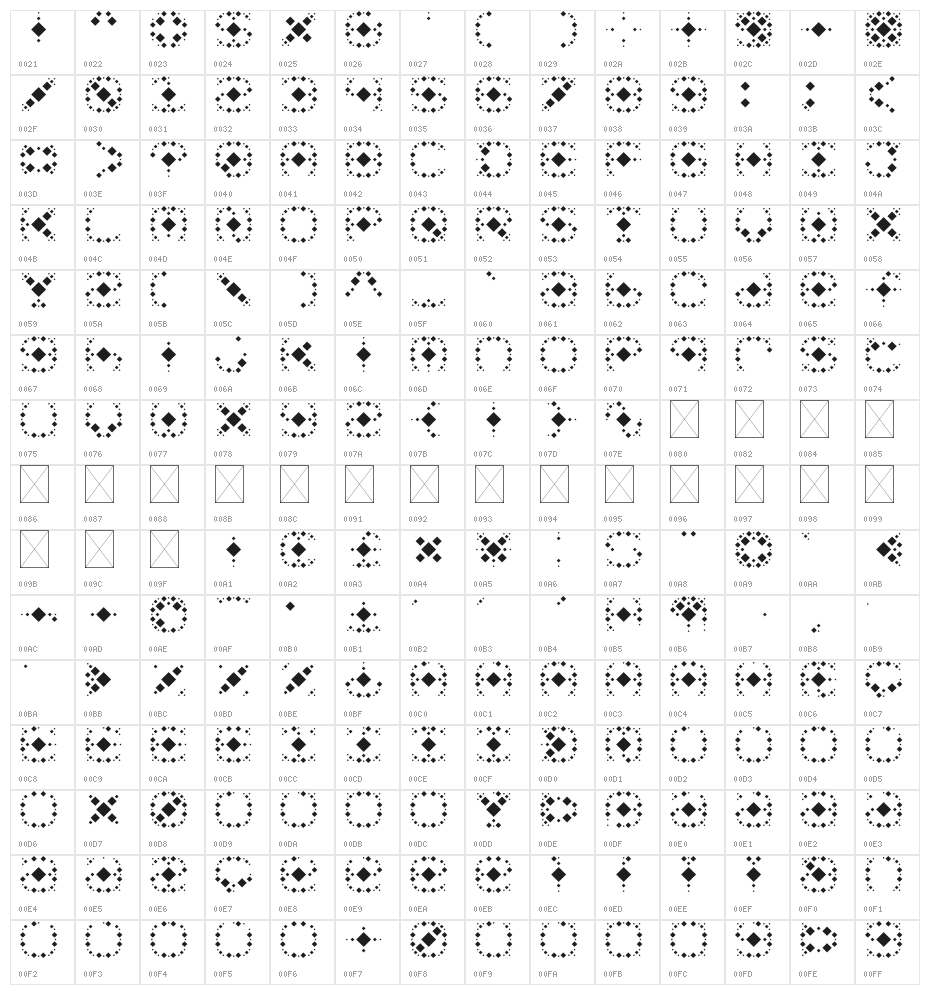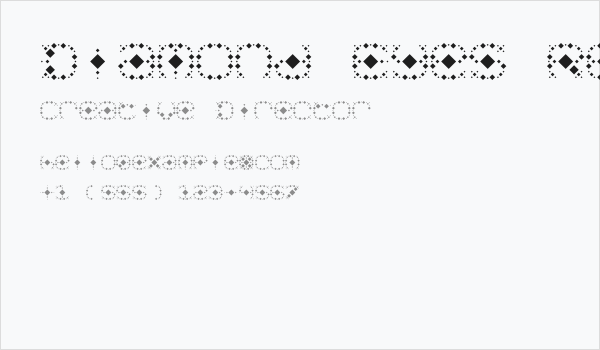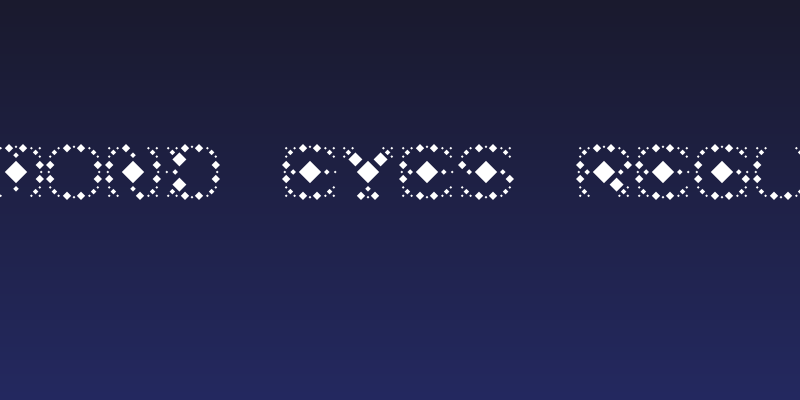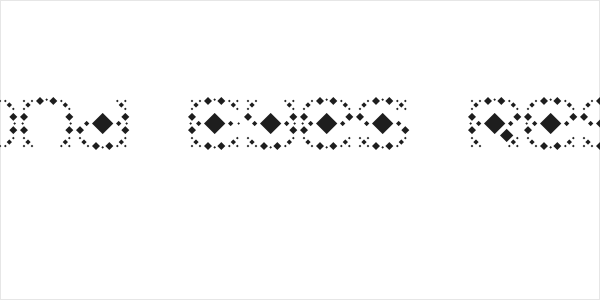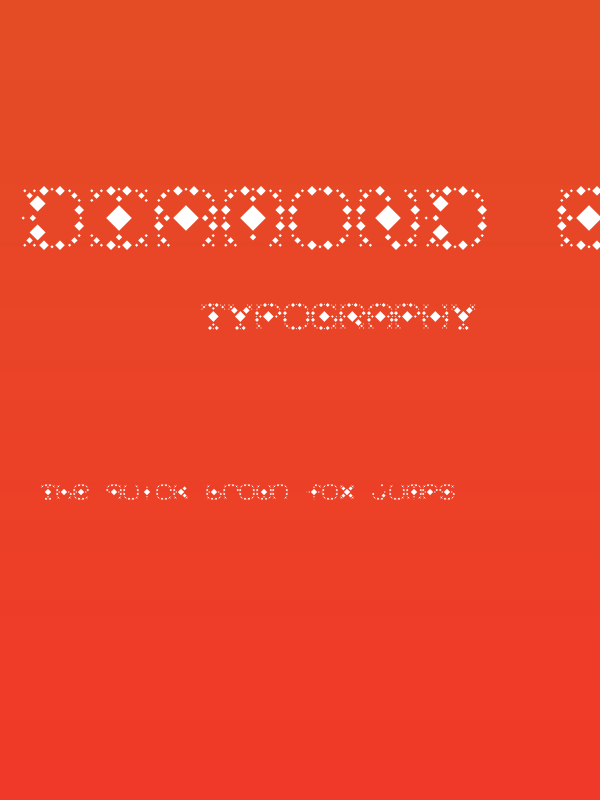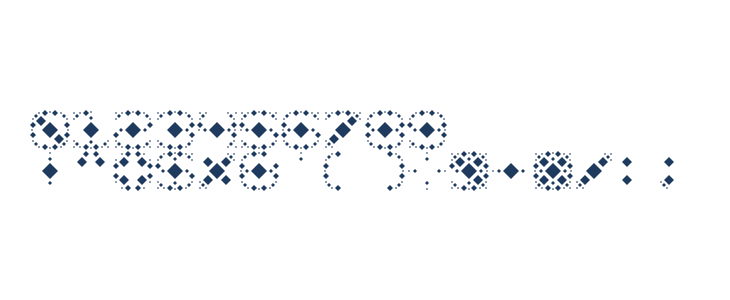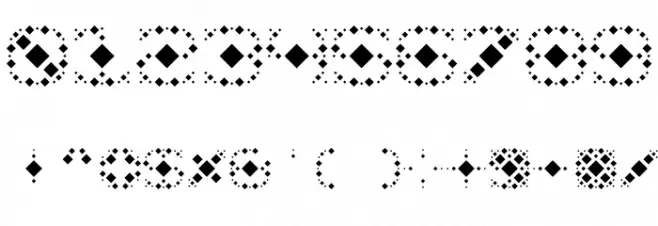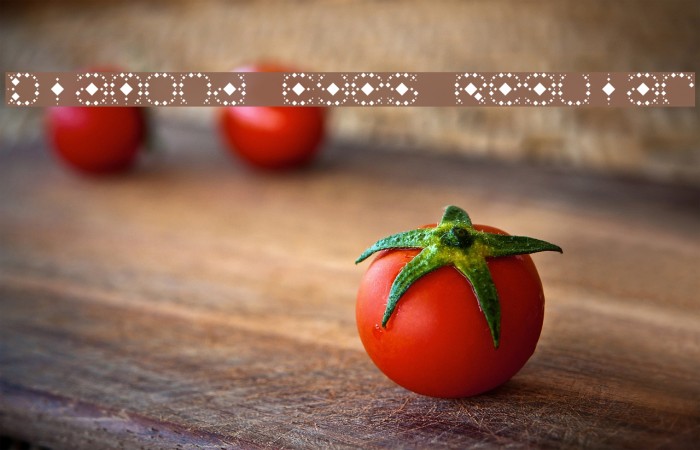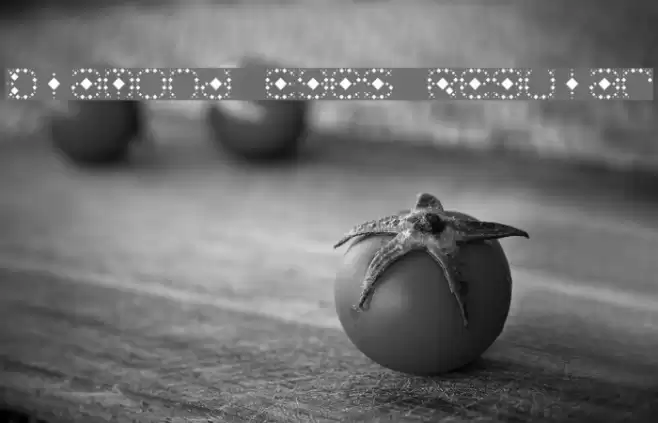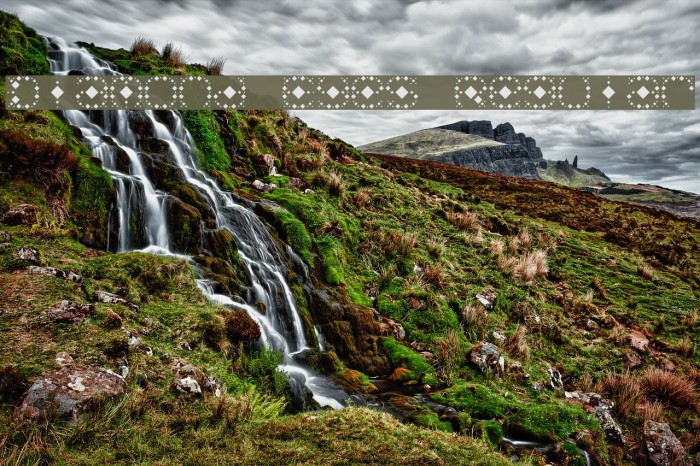
Diamond Eyes Regular Font
Diamond Eyes Regular Description
This font features a unique and decorative design, characterized by its use of diamond shapes to form each letter and symbol. The intricate pattern creates a visually striking appearance, making it stand out as a display typeface. The letters are composed of a series of small diamond shapes, with larger diamonds used to emphasize certain parts of each character. This creates a textured and geometric look that is both modern and artistic. The font maintains a consistent pattern across all characters, providing a cohesive and harmonious aesthetic. Its distinct style makes it suitable for creative projects where a bold and eye-catching font is desired.